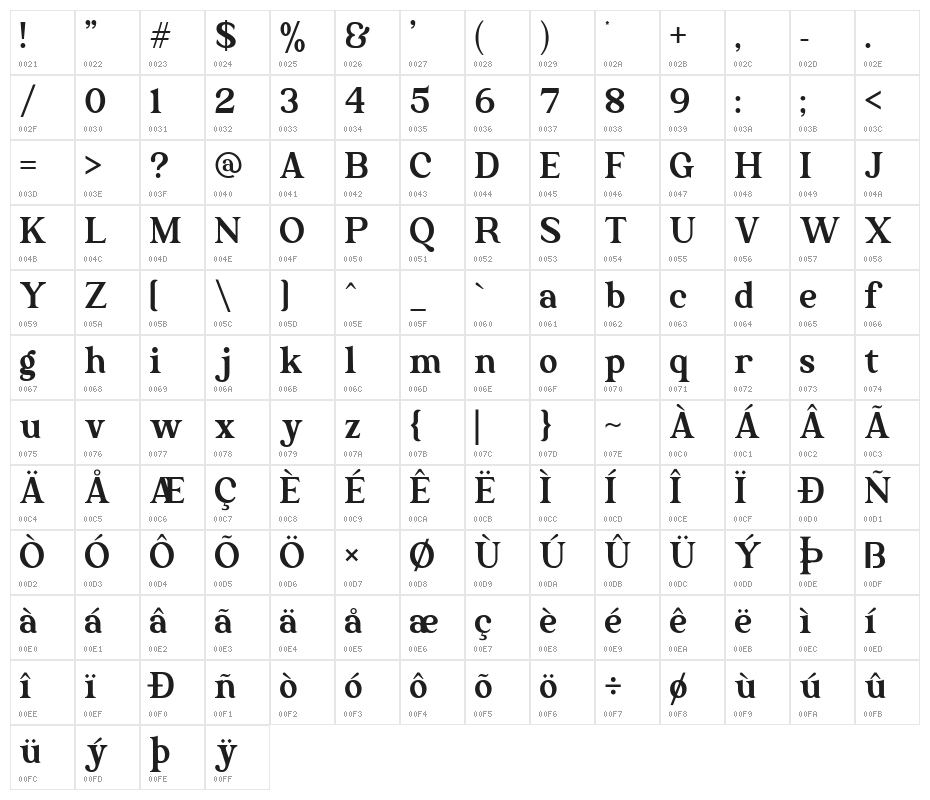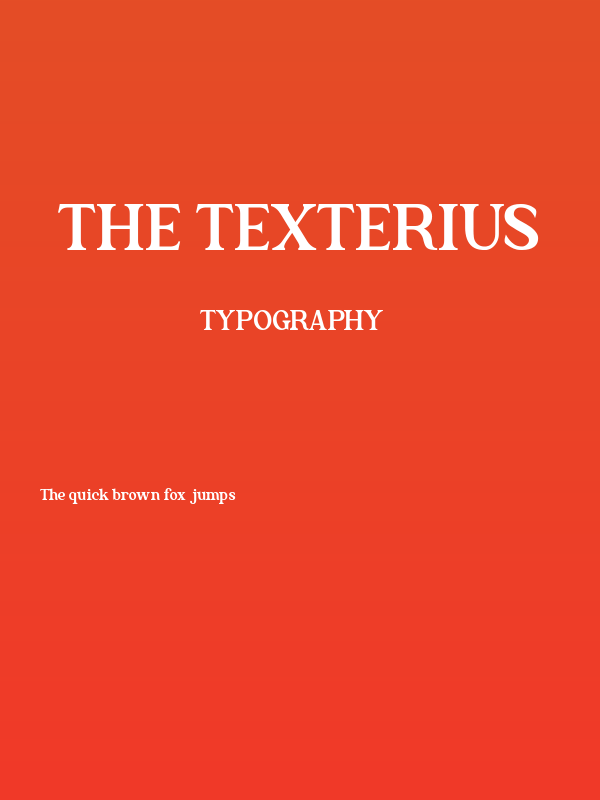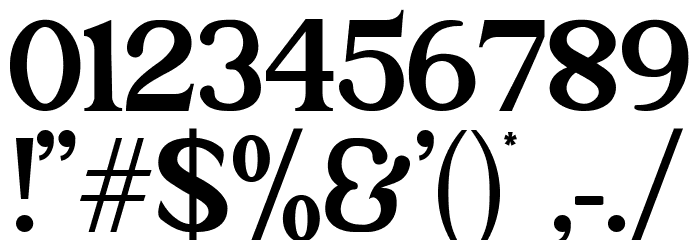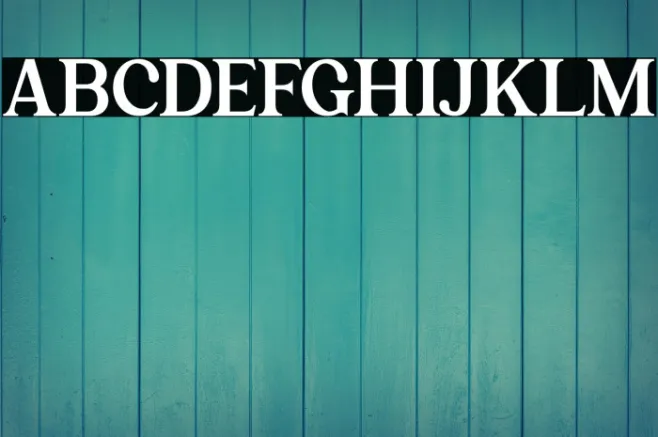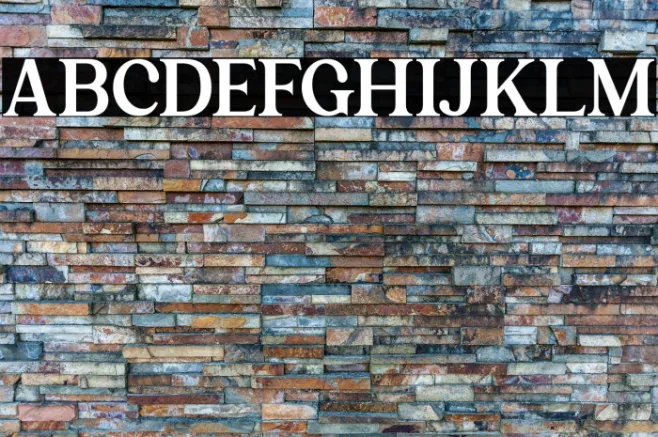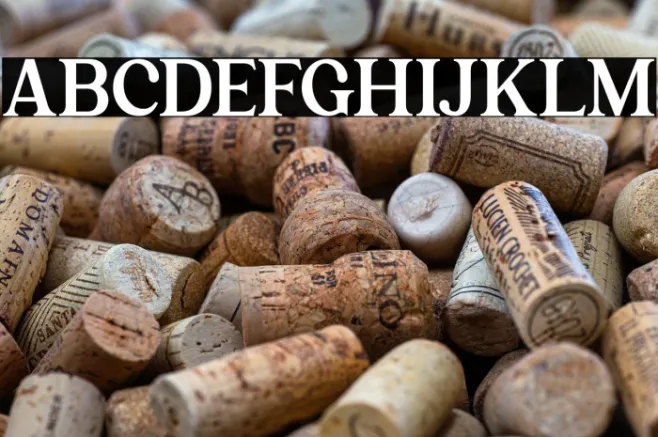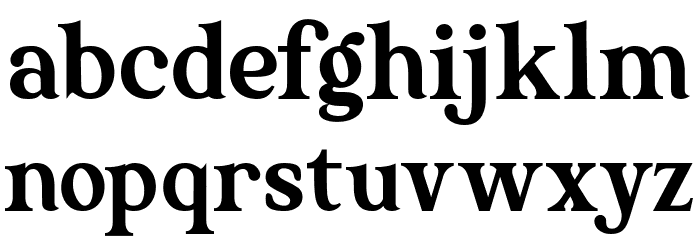
The Texterius Font
The Texterius Description
This font features a classic serif style with strong, bold strokes and elegant curves. The uppercase letters are well-defined with a traditional feel, while the lowercase letters maintain a consistent flow, enhancing readability. The numerals are clear and distinct, making them suitable for various applications. Special characters are designed with attention to detail, ensuring they complement the overall aesthetic. The font's balanced proportions and moderate contrast in stroke thickness give it a timeless appeal, making it versatile for both digital and print media.
| Proposed Projects | Ideal for book covers, editorial design, branding, and formal invitations. |